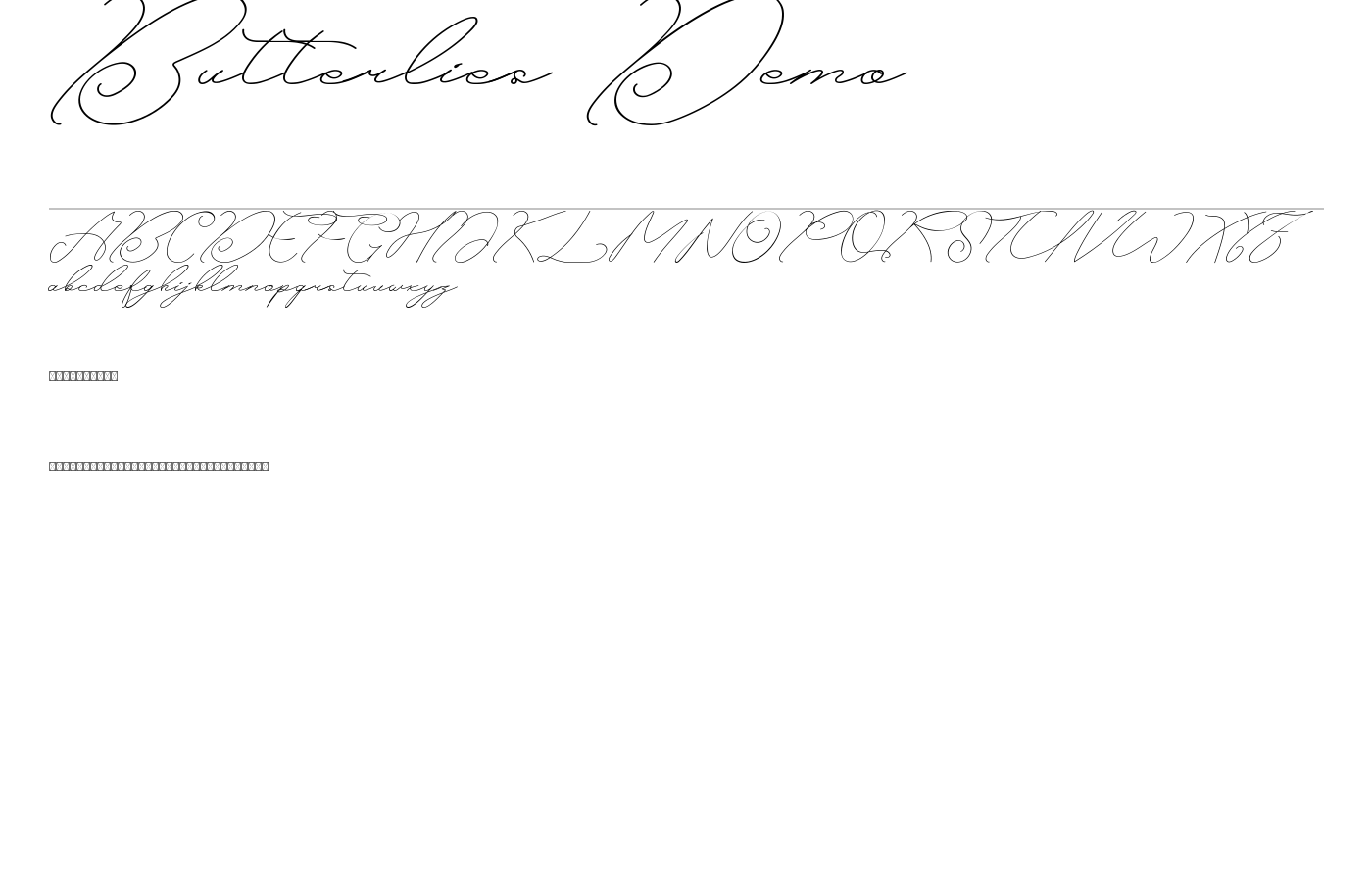
Butterlies Demo is an elegant and delicate script font characterized by thin, flowing lines that mimic fine handwriting with graceful loops and swashes. Its light weight and airy style make it perfect for sophisticated branding, wedding invitations, and feminine editorial projects where a touch of refinement and personal charm is desired. This font works best in large sizes where its intricate details can shine, adding a soft, romantic feel to any design.
Butterlies Demo Font
About Butterlies Demo Font
| Font family | Butterlies Demo Font |
| Designer | Yasri Ainun & Suci Aita |